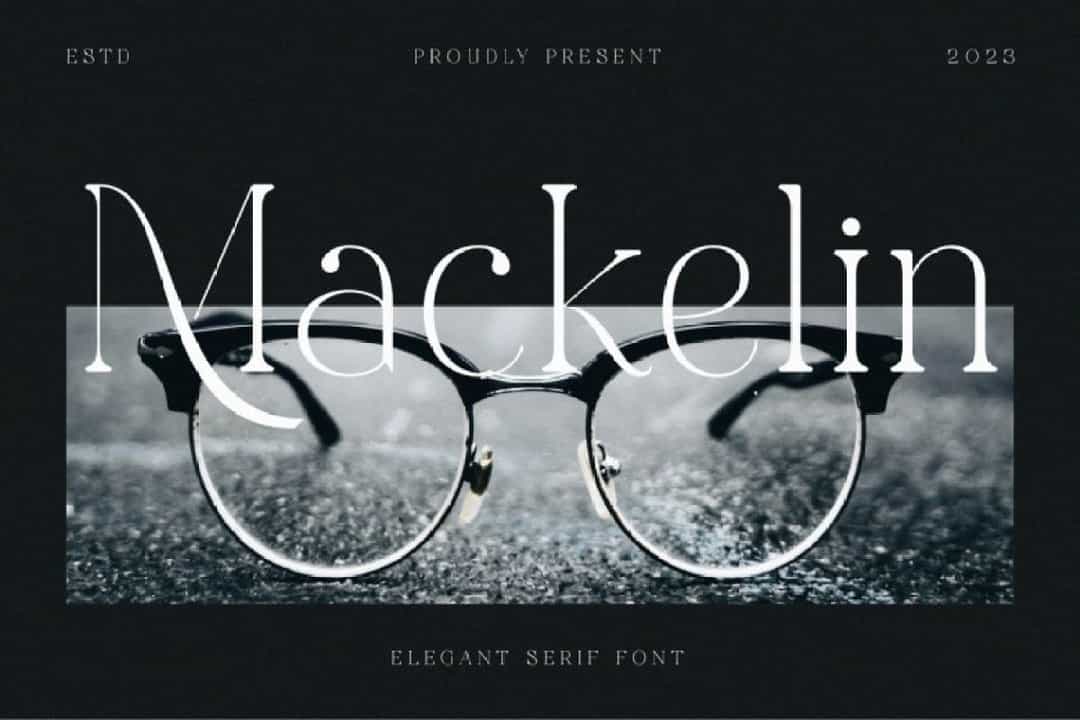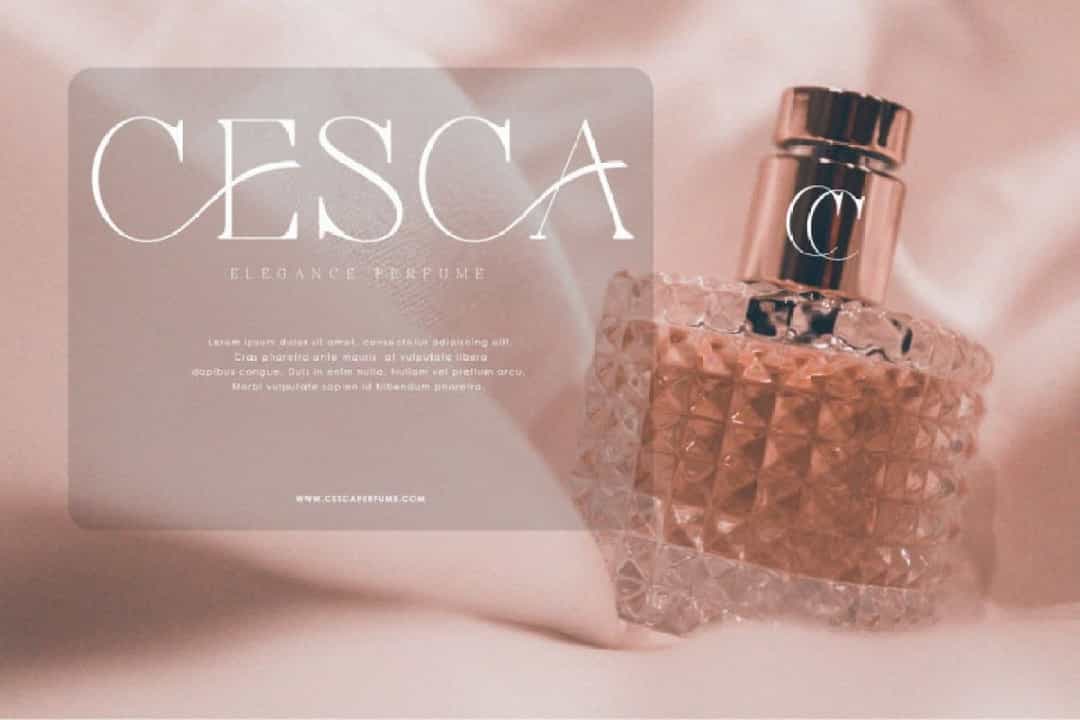
Mackelin is an elegant and modern serif font. With its minimalist yet luxurious design, Mackelin adds a luxurious and contemporary aesthetic to designs such as logos and websites as well as branding identities for social media quotes, wedding stationery and many other projects!